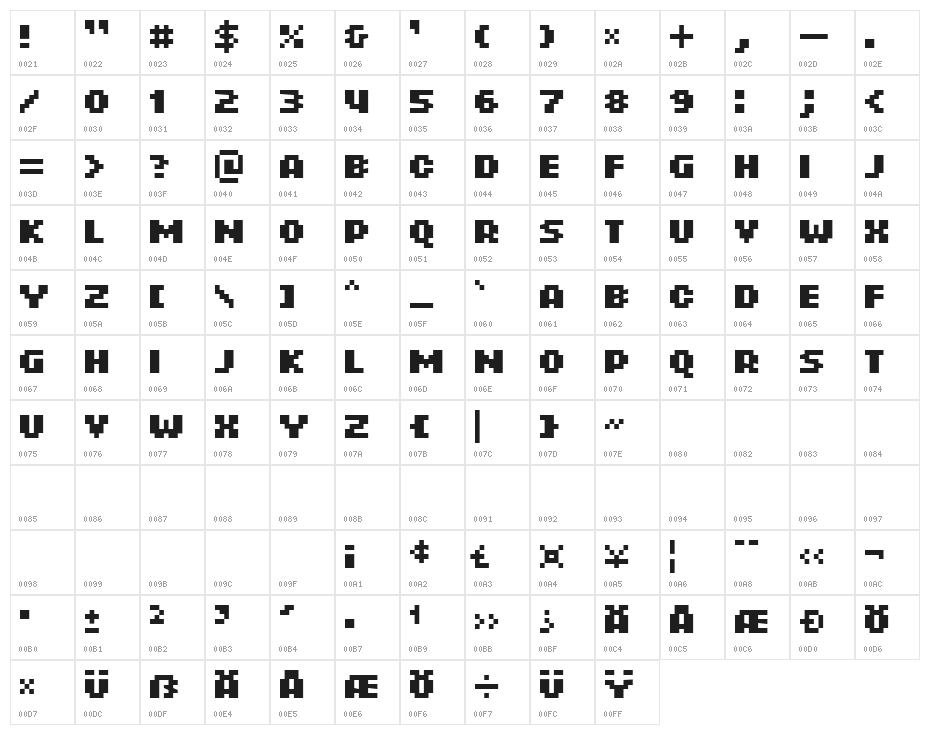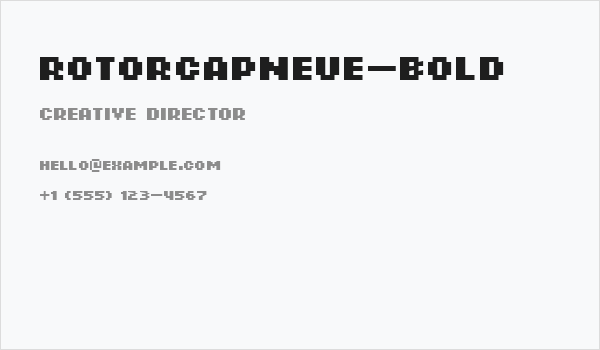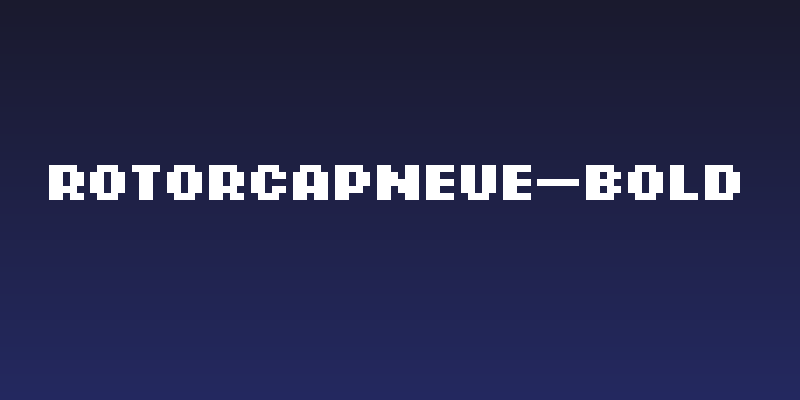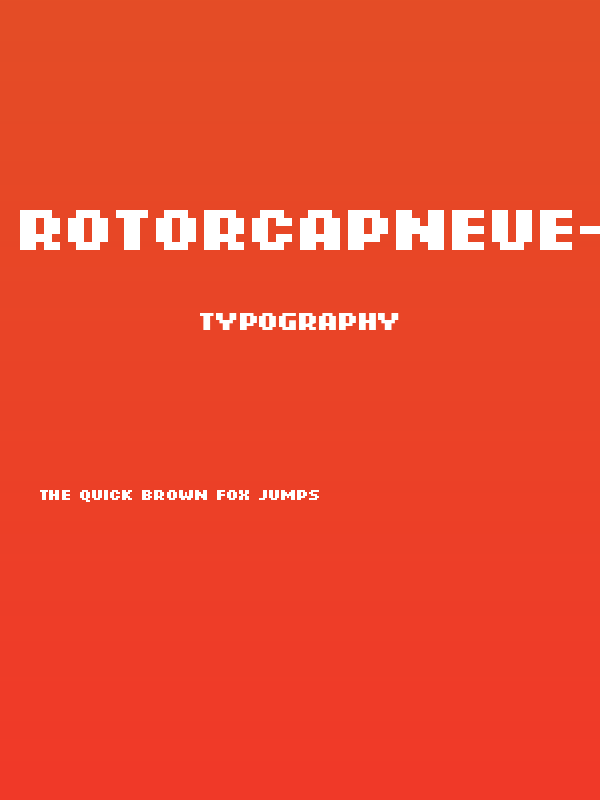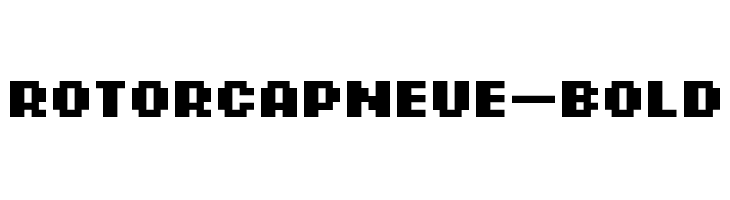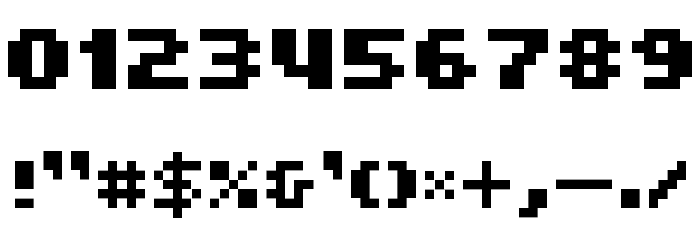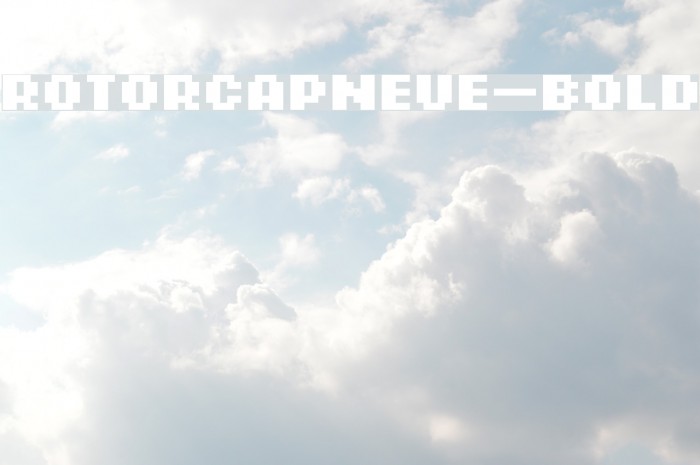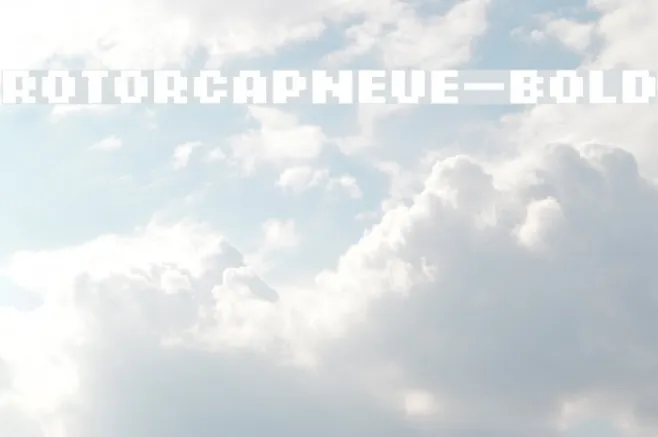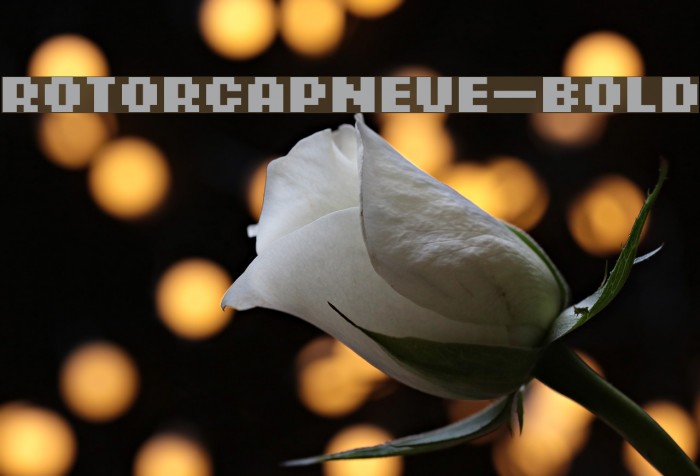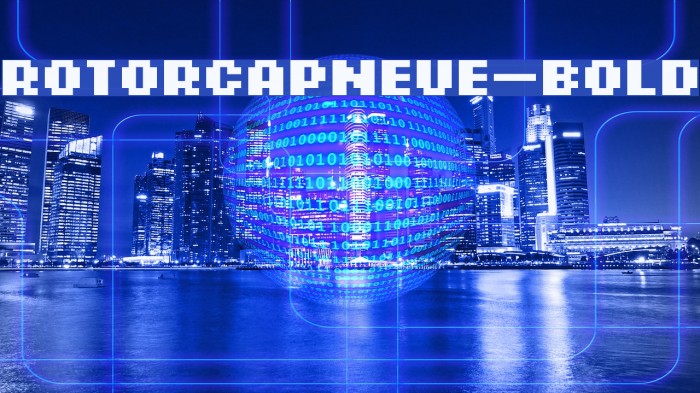
ROTORcapNeue-Bold Font
ROTORcapNeue-Bold Description
This font features a bold, pixelated style reminiscent of early digital displays and retro video games. Each character is composed of blocky, square shapes that create a distinct, geometric appearance. The uniformity in height and width across characters ensures a cohesive look, while the sharp angles and lack of curves give it a modern, tech-inspired feel. The font is highly legible at various sizes, making it suitable for digital interfaces and designs that require a strong visual impact. Its unique style can evoke nostalgia while maintaining a contemporary edge.
| Proposed Projects | Ideal for video game graphics, tech-themed posters, digital art, and retro-inspired branding. |